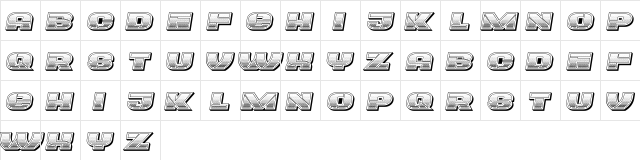
Eccentric Gradient Italic
Design Context for Eccentric Gradient Typeface
Eccentric Gradient is a composed and adaptable typeface that performs quietly and consistently across a wide range of design contexts. The dynamic lean of this cut emphasises speed and emphasis in any layout.
Pro Tip: Try Eccentric Gradient for annotation and caption copy alongside an upright companion — the contrast in angle creates a dynamic but ordered typographic system.